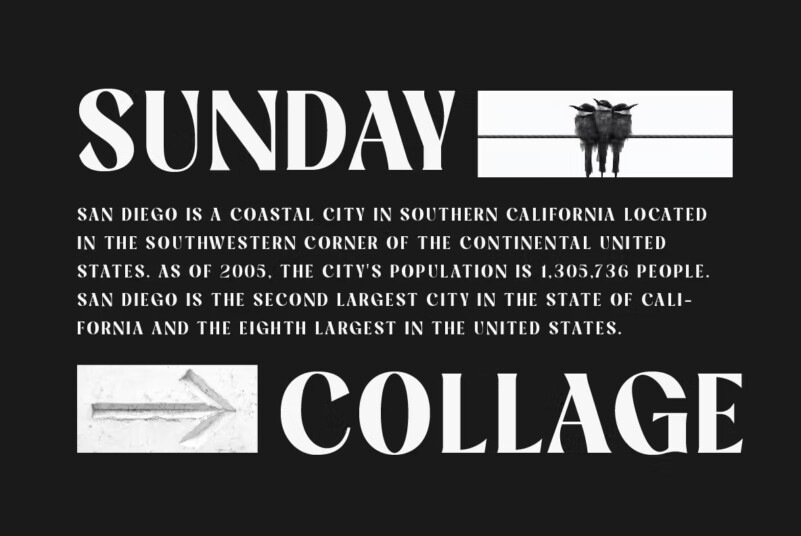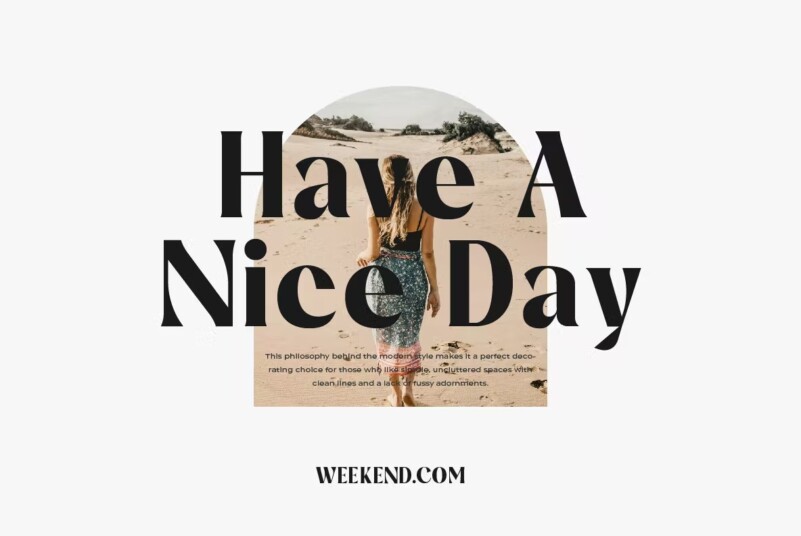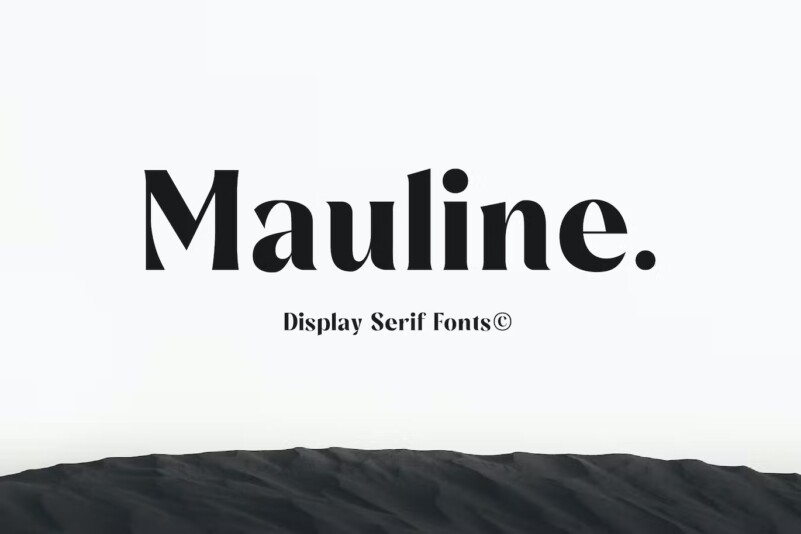
Mauline Display Serif Font
a modern and sleek serif font that provides excellent readability for many applications. This font is ideal for any type of graphic or advertising design work, from logo design to web design and print projects. Its easy-to-read typefaces, distinct letterforms, and beautiful typographic details make this typeface ideal for creating impactful and captivating visual designs.